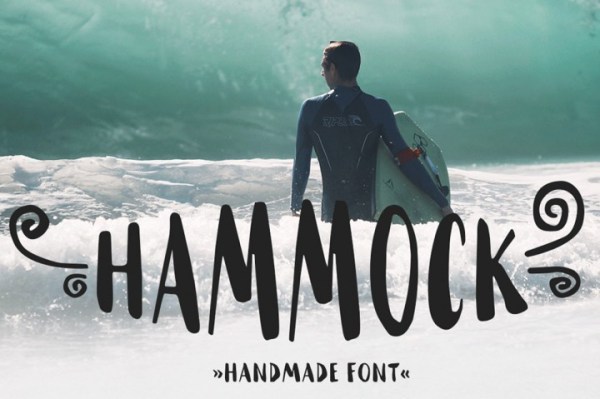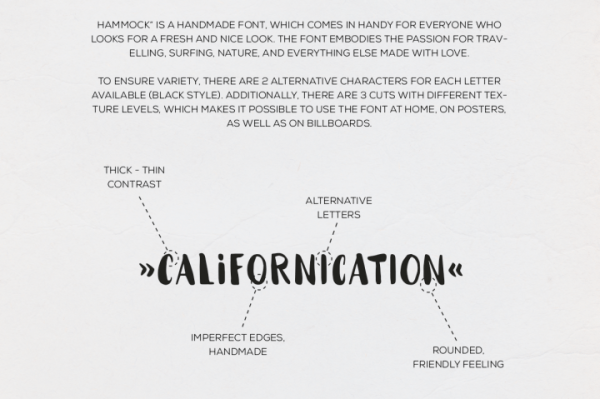
Freebie Wednesday – Hammock Handmade Font
The Hungry JPEG has a cute Freebie Handmade Font for your design arsenal. Hammock, by Kaesebart’s creations embodies the passion for traveling, surfing, nature and everything else made with love. To ensure variety, there are two alternative characters for each letter available (black style), additionally, there are three cuts with different texture levels which makes it possible to use however you want.